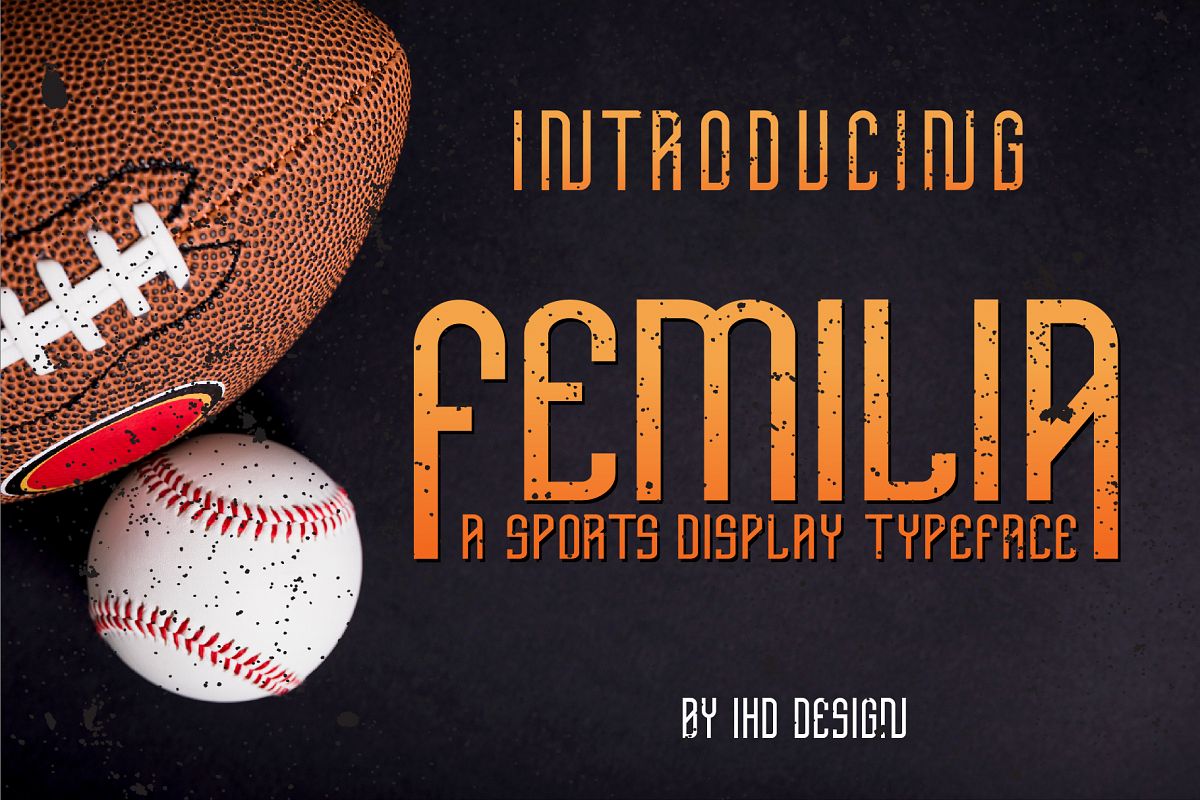
Femilia - Modern Serif Sports Font Typeface
Alenikh is a hand-lettered box and smooth script.This font is awesome for your creative project such as Logotype, esports, Branding, Packaging, Merchandise,  label, and much more.
Alenikh comes with standard character, numeral, punctuation and also alternates, standard and discretionary ligatures which  let you customize your designs.